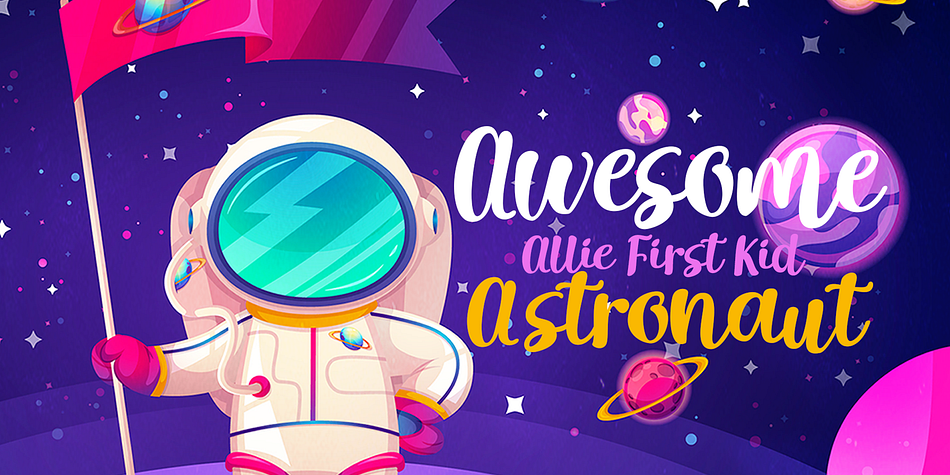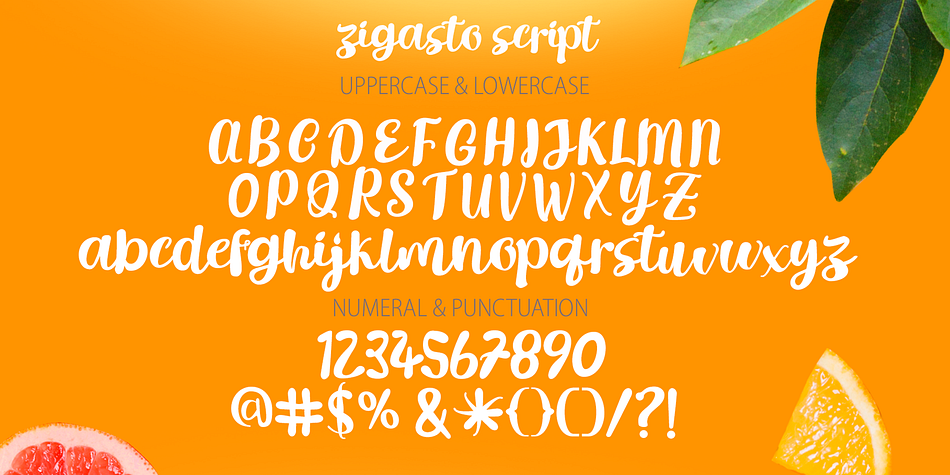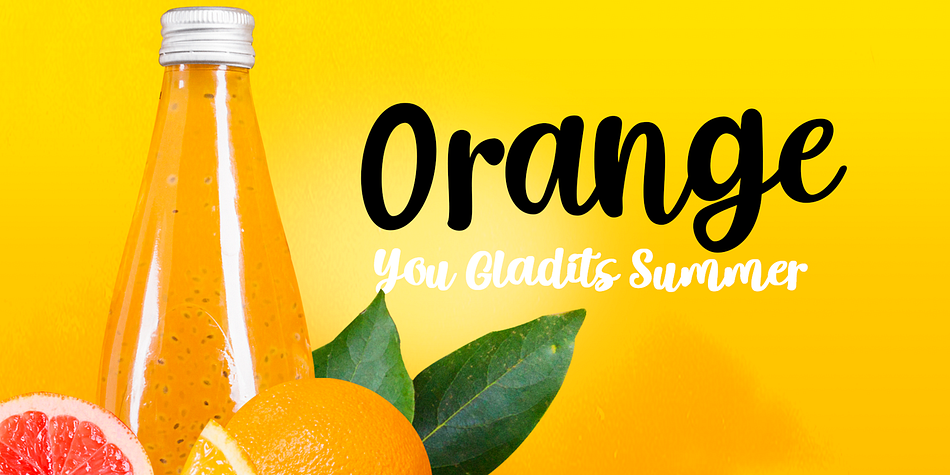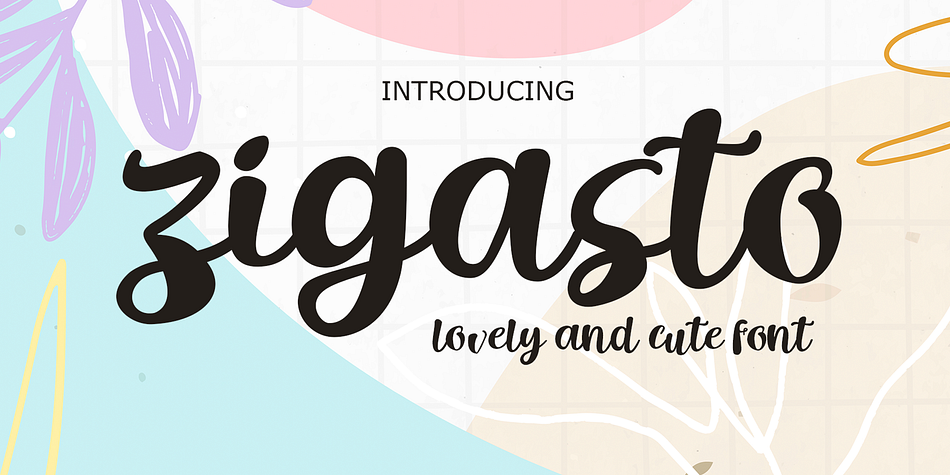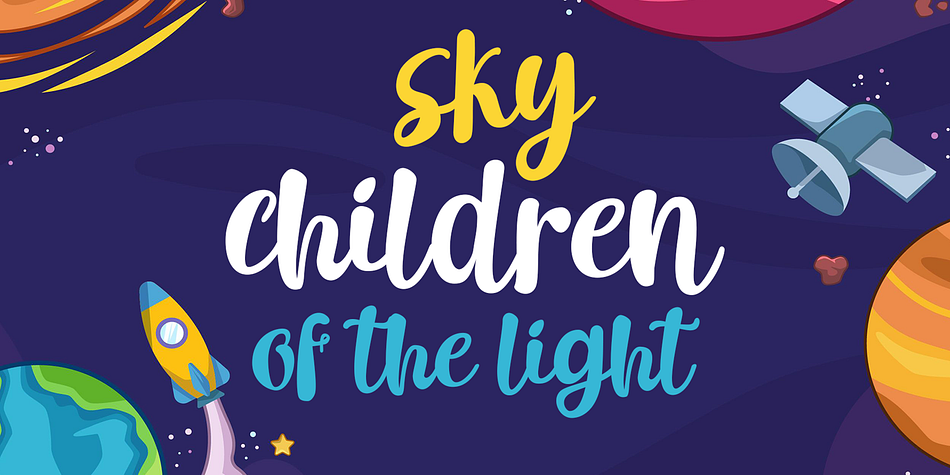
Zigasto
Zigasto is a brush script font family published by Gatype.
This Zigasto Font is a bold round script perfect for vintage and retro designs on logos, t-shirts, branding, books, posters, packaging, labels, invitations, etc. Included in your purchase:
This cute font has a soft curved profile, giving it an almost bubbly feel!